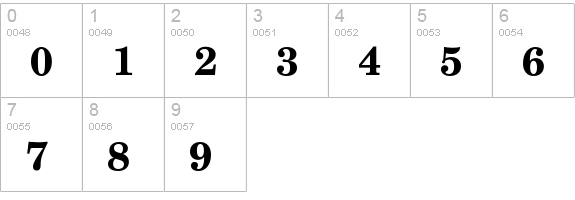
Century Schoolbook RepriseFractions SSi Fractions Bold Font Details
Century Schoolbook RepriseFractions SSi Fractions Bold is a strong, high-contrast variant in the Century typeface family \xE2\x80\x94 well suited to headlines, attention-grabbing titles, and strong calls-to-action.